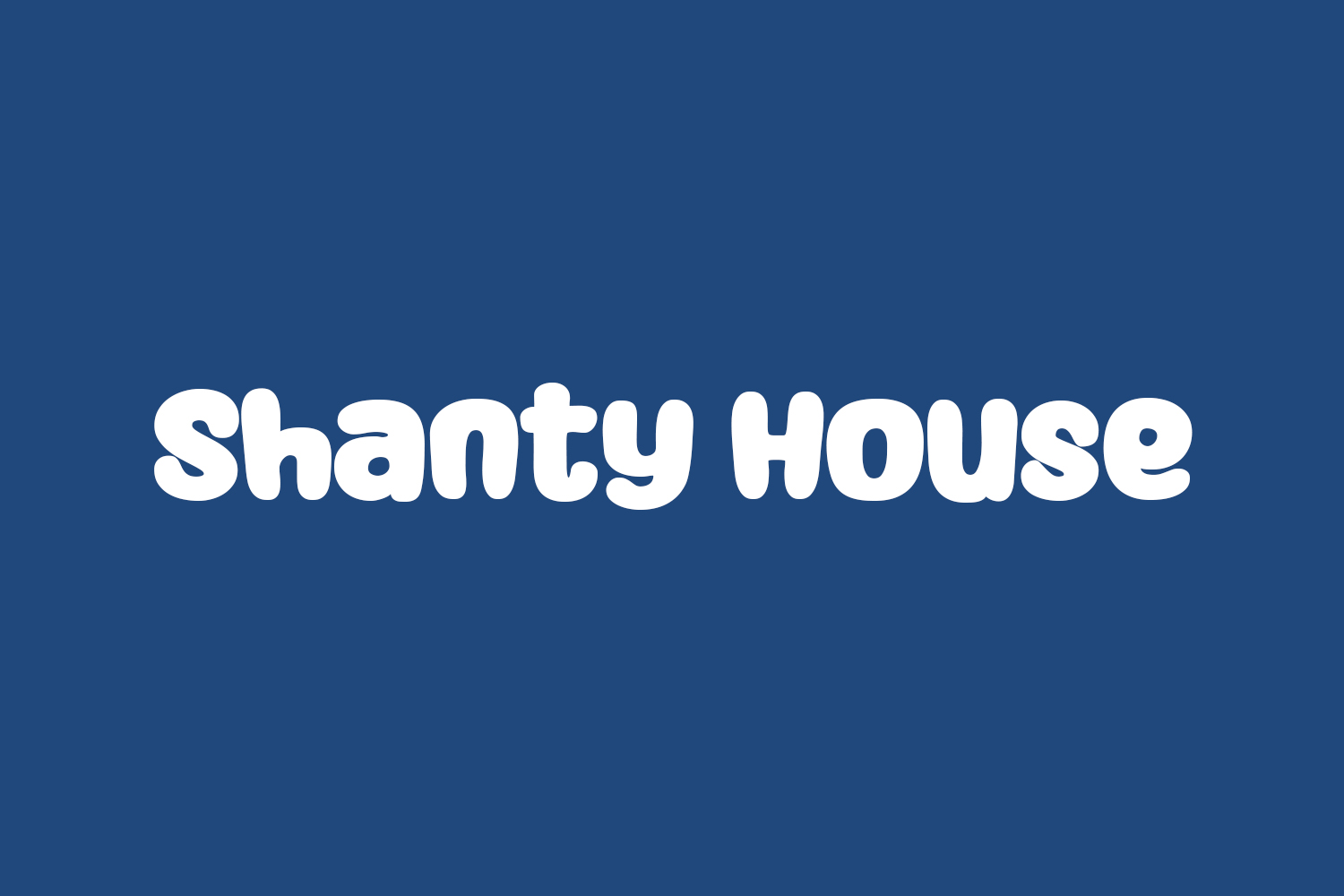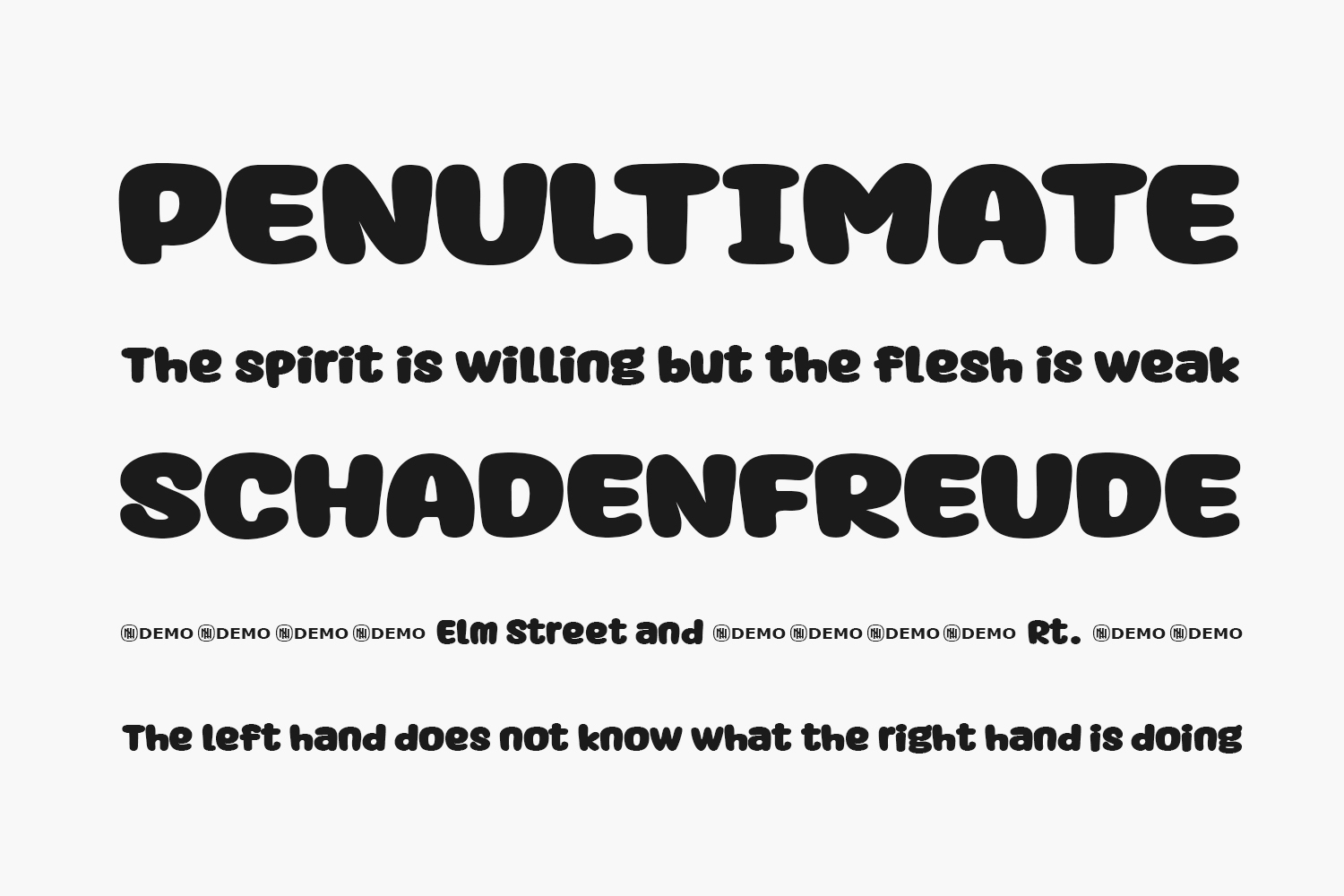
Discover the charm of Shanty House Free Font, a bold, playful, and whimsical handwritten font. With a touch of quirkiness, this versatile font excels in various contexts, adding a delightful flair to your projects. Download the font for free if you need it for personal use or purchase the full version for commercial use.
Designed by Niskala Huruf